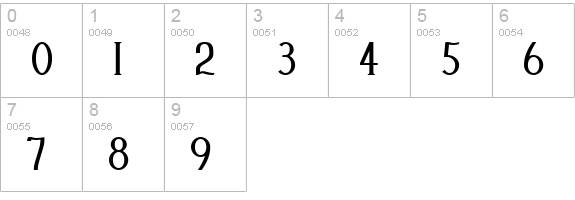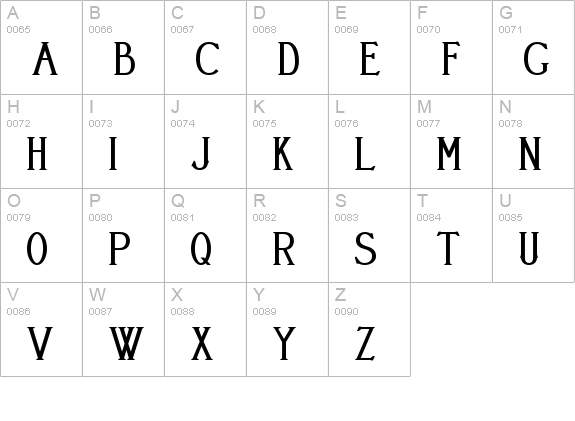
Cleaver's_Juvenia_Heavy Font Details
Cleaver's Juvenia Heavy font is a bold and impactful typeface that commands attention with its strong, distinctive characters. This modern display font is perfect for creating eye-catching headlines, logos, and posters that make a statement. Its thick strokes and sharp angles give it a powerful and dynamic look that exudes confidence and strength. And the best part? Cleaver's Juvenia Heavy font is available for free download at FontsMarket.com! Whether you're a designer looking to add a bold touch to your projects or a business owner seeking a standout branding solution, this font is sure to impress. Don't miss out on the opportunity to elevate your designs with this versatile and striking typeface. Download Cleaver's Juvenia Heavy font today and unleash your creativity!